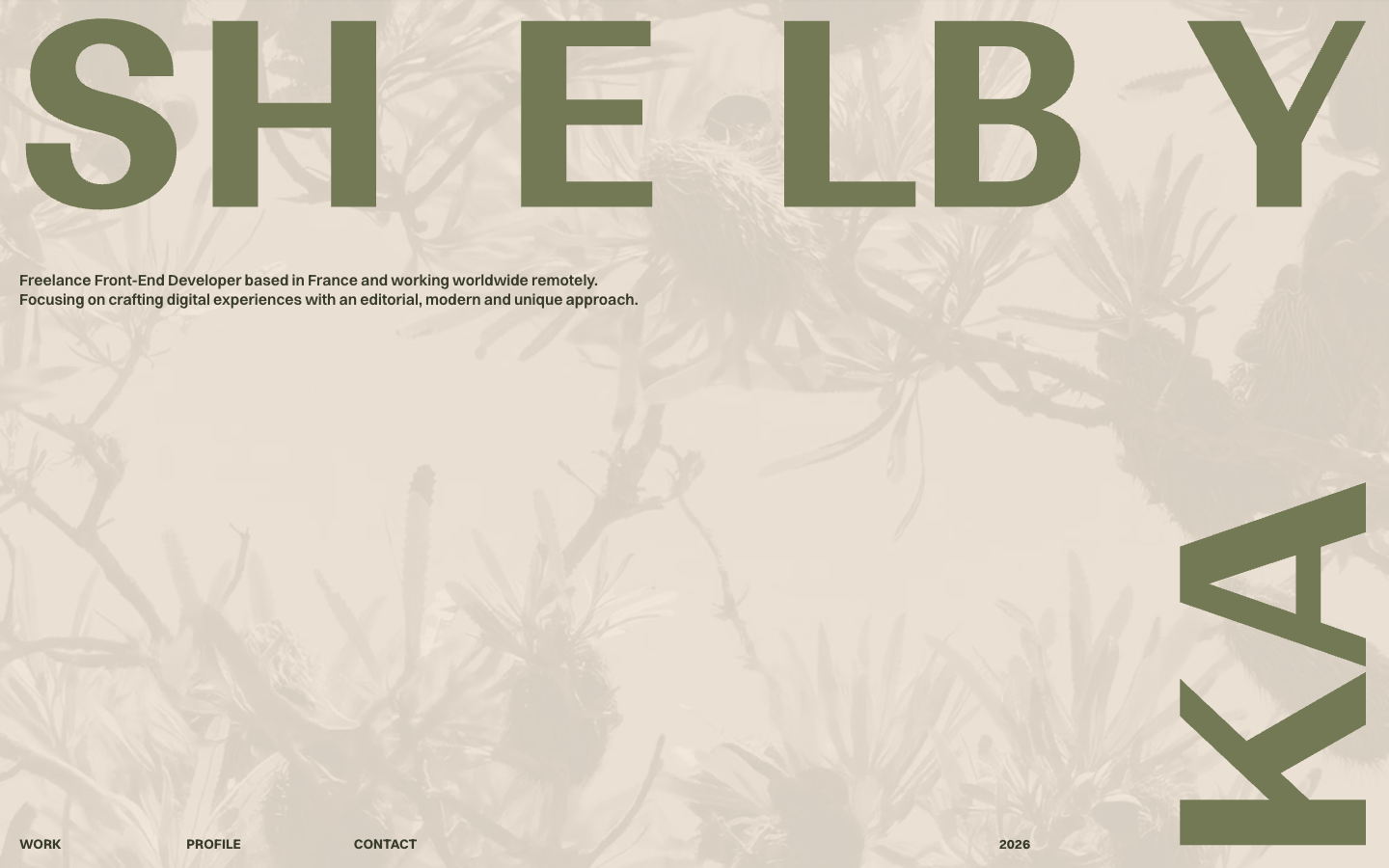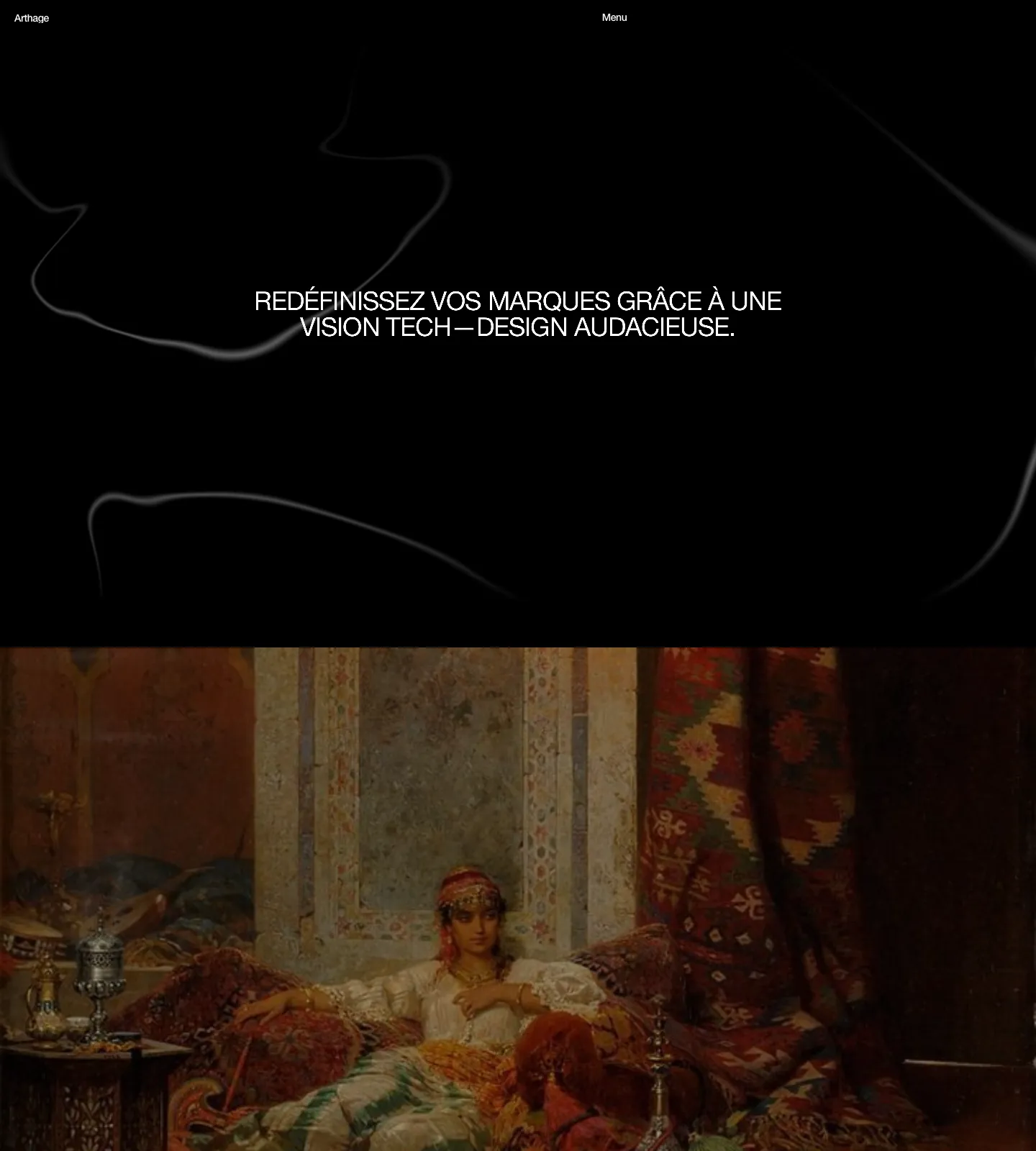
The Switzer font on real websites
11 websites set in Switzer, with their font pairings and stack.
Switzer is a free neo-grotesque sans-serif by Indian Type Foundry. A Swiss-style neo-grotesque, free on Fontshare. Plain, clean and dependable, a free stand-in for Helvetica-like layouts.
- Sans-serif, neo-grotesque sans-serif
- Indian Type Foundry
11 websites in the save.design library use Switzer. It shows up most on portfolio and agency sites. It's most often paired with Proto Mono, Geist Mono and Lato. Sites using Switzer are most often built with React (55%).
Which websites use Switzer?
Recent examples include drone.riotters.com, usealia.com, pascalewaat.com and grail-app.com. All 11 websites using Switzer are on this page, with the rest of their fonts and their tech stack.
What fonts pair well with Switzer?
On real sites, Switzer is most often set alongside Proto Mono (9% of them), Geist Mono (9% of them) and Lato (9% of them).